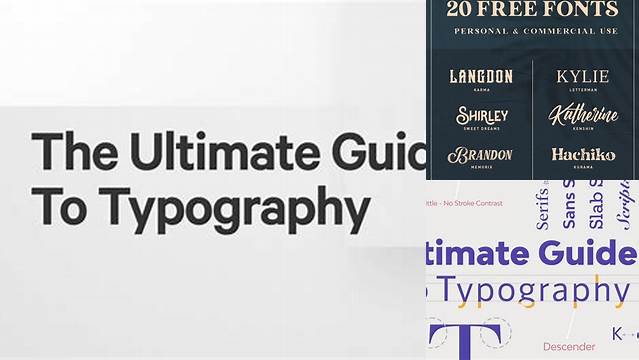
Top Free Typography Fonts: The Ultimate Guide
Hey guys! Finding the perfect font can seriously make or break your design, right? Whether you're crafting a killer logo, designing a website, or just making a cool poster, typography matters. And the best part? You don't always have to shell out big bucks for awesome fonts. Today, we're diving deep into the world of the best free typography fonts. Get ready to bookmark this page because we're about to unleash a treasure trove of amazing, cost-free fonts that will elevate your projects to the next level!
Why Typography Matters
Before we jump into the list, let's quickly chat about why typography is so crucial. Typography isn't just about choosing pretty letters; it's about conveying a message, setting a tone, and creating a visual hierarchy. The right font can grab attention, improve readability, and even evoke emotions. Think about it: a playful, rounded font might be perfect for a children's book, while a sleek, sans-serif font could be ideal for a tech startup. The choices are endless, and understanding the impact of different typefaces is key to effective design.
1. Best Free Sans-Serif Fonts
Sans-serif fonts are your go-to for a modern, clean look. These fonts lack the little decorative strokes (serifs) that you see in fonts like Times New Roman. They're super versatile and work great for body text, headlines, and logos. Let's explore some of the best free options.
Discovering the top sans-serif font options
When looking for the best free typography fonts, sans-serif options always stand out due to their clarity and modern appeal. Fonts like Roboto offer a clean and versatile look, perfect for both body text and headlines. Known for its readability across various screen sizes, Roboto is a staple in the design world. Another excellent choice is Open Sans, which boasts a neutral yet friendly appearance. Its wide range of weights makes it suitable for various design projects. For a more geometric feel, Montserrat is a fantastic option. This font exudes sophistication and works exceptionally well in logos and branding materials. To add a touch of uniqueness, consider Lato, a semi-rounded sans-serif that provides warmth without sacrificing professionalism. These sans-serif fonts offer a balanced blend of functionality and style, making them ideal for any designer on a budget.
2. Top Free Serif Fonts
Serif fonts have those little strokes at the ends of the letters, giving them a more traditional and elegant feel. They're often used in books, magazines, and websites that want to convey a sense of authority and sophistication. Let's find some great free serif fonts.
Exploring the world of no-cost serif fonts
For projects that require a touch of tradition and elegance, serif fonts are indispensable, and finding the best free typography fonts in this category is a real win. Lora is a beautifully balanced serif font that offers a contemporary feel while maintaining readability. Its slightly brushed curves add a touch of personality, making it suitable for both body text and display purposes. Playfair Display is another standout option, perfect for headlines and titles. Its high contrast and elegant design bring a sense of sophistication to any project. If you're looking for a more classic appearance, Arvo is an excellent choice. This slab-serif font provides a strong and sturdy look, ideal for branding and editorial design. Lastly, Bitter is designed specifically for on-screen readability, making it a fantastic option for websites and digital publications. With these free serif fonts, you can infuse your designs with character and refinement without spending a dime.
3. Best Free Display Fonts
Display fonts are all about making a statement. These are the fonts you use for headlines, posters, and anything that needs to grab attention. They're often more stylized and unique than your standard body text fonts. Let's uncover some amazing free display fonts.
Unleashing creative potential with complimentary display fonts
When it comes to making a visual impact, display fonts are essential, and discovering the best free typography fonts in this category can truly elevate your designs. Bebas Neue is a widely popular sans-serif display font known for its clean lines and tall, narrow structure. It's perfect for headlines and posters where space is limited. Oswald is another excellent choice, offering a versatile and modern look that works well in various contexts. Its slightly condensed form makes it ideal for creating eye-catching titles. For a more playful and whimsical feel, consider Luckiest Guy. This hand-drawn font adds a touch of personality and is perfect for projects that need a fun, informal vibe. If you're after something bold and impactful, Impact is a classic option that always delivers. These free display fonts provide a fantastic way to add character and flair to your designs without breaking the bank.
4. Free Script and Handwritten Fonts
Script and handwritten fonts add a personal, human touch to your designs. They're great for invitations, logos, and anything that needs a bit of warmth and authenticity. Let's explore some top-notch free options.
Adding a personal touch with complimentary script fonts
To inject warmth and personality into your projects, script and handwritten fonts are invaluable, and finding the best free typography fonts in this style is a fantastic opportunity. Great Vibes is a beautifully flowing script font that exudes elegance and is perfect for wedding invitations and formal designs. Pacifico offers a casual and friendly vibe, ideal for branding and social media graphics. Its rounded letters and playful curves make it approachable and engaging. For a more rustic and authentic feel, Amatic SC is an excellent choice. This hand-drawn font adds a unique touch to any project, perfect for posters and headings. Additionally, Dancing Script provides a lively and informal look, making it great for adding a touch of fun to your designs. These free script and handwritten fonts allow you to create designs that feel personal and inviting, without incurring any costs.
5. Best Free Monospace Fonts
Monospace fonts have characters that each take up the same amount of horizontal space. They're often used in coding, terminal emulators, and designs that need a technical or retro feel. Let's check out some awesome free monospace fonts.
Exploring complimentary monospace font options
Monospace fonts are essential for coding, technical documentation, and creating a retro aesthetic. Discovering the best free typography fonts in this category is crucial for developers and designers alike. Source Code Pro is a highly readable and versatile monospace font designed by Adobe. Its clean lines and distinct letterforms make it ideal for long coding sessions. Fira Code takes monospace fonts to the next level with its ligatures, which combine common coding characters into single, more readable symbols. Roboto Mono offers a balanced and modern look, suitable for both coding and UI design. Its clear and consistent design ensures readability across various screen sizes. For a more classic and typewriter-inspired feel, Courier Prime is an excellent choice. These free monospace fonts provide a range of options to enhance your coding environment and design projects.
6. Font Pairing Tips
Choosing the right fonts is only half the battle. Pairing them effectively is where the magic happens. Here are some tips for creating harmonious font combinations:
Mastering the art of font combinations
Choosing the right fonts is essential, but pairing them effectively takes your design to the next level. When seeking the best free typography fonts, consider these tips to create harmonious combinations. Start by contrasting font styles. Pair a bold, attention-grabbing display font with a simple, readable sans-serif for body text. This creates a clear visual hierarchy and ensures readability. Another approach is to use fonts from the same family but with different weights and styles. For example, combine Roboto Bold for headlines with Roboto Regular for body text. This provides consistency while adding subtle variation. You can also pair a serif font with a sans-serif font to achieve a classic yet modern look. Lora paired with Open Sans is a popular combination that works well in many contexts. Lastly, ensure that the fonts you choose complement each other’s mood and tone. A playful script font might pair well with a clean sans-serif, while a formal serif font might be better suited with a more traditional sans-serif. With these strategies, you can create visually appealing and effective font pairings.
7. Where to Download Free Fonts
So, where can you find these amazing free fonts? Here are some of the best resources:
Finding quality fonts at no cost
Locating the best free typography fonts requires knowing where to look. Several excellent resources offer high-quality fonts at no cost. Google Fonts is a fantastic starting point, providing a vast library of open-source fonts that are easy to access and use on the web. Adobe Fonts also offers a selection of free fonts through their Creative Cloud subscription, giving you access to a wide range of professionally designed typefaces. Font Squirrel is another valuable resource, curating free fonts that are licensed for commercial use, ensuring you can use them in your projects without legal concerns. DaFont is a popular platform with a diverse collection of user-submitted fonts, although it's important to check the licensing terms for each font. MyFonts offers both free and paid fonts, with occasional freebies available in their newsletter. By exploring these resources, you can discover a wealth of free fonts to enhance your design projects.
8. Understanding Font Licensing
Before you start using any free font, it's crucial to understand the licensing terms. Some fonts are free for personal use only, while others can be used commercially. Make sure you read the fine print to avoid any legal issues down the road. Always double-check the license! This is super important, guys!
Navigating the legal aspects of complimentary fonts
Before using any free font, it's crucial to understand its licensing terms to avoid legal issues. When searching for the best free typography fonts, always check the license agreement. Some fonts are free for personal use only, meaning you can use them for non-commercial projects like school assignments or personal blogs. Others are licensed for commercial use, allowing you to use them in projects that generate revenue, such as logos, websites, and marketing materials. Open Font License (OFL) is a common license that permits both personal and commercial use, modification, and distribution. However, some fonts may have specific restrictions, such as requiring attribution or prohibiting modification. Resources like Google Fonts typically provide clear licensing information for each font, making it easy to understand the terms of use. Always read the fine print and ensure you comply with the license requirements to protect yourself from potential copyright infringement. By understanding and respecting font licenses, you can confidently use free fonts in your projects.
9. Font File Formats: OTF vs. TTF
You'll often see fonts in two main file formats: OTF (OpenType Font) and TTF (TrueType Font). OTF is generally the newer and more advanced format, offering better support for advanced typographic features. However, both formats are widely supported, so you usually don't need to worry too much about the difference.
Understanding font file formats: OTF and TTF
When working with fonts, you'll encounter two primary file formats: OTF (OpenType Font) and TTF (TrueType Font). Understanding the differences can help you make informed choices when seeking the best free typography fonts. TTF is the older format, developed by Apple and Microsoft in the late 1980s. It is widely compatible and supports basic typographic features. OTF, developed by Adobe and Microsoft, is the more advanced format. It offers better support for complex typography, including ligatures, alternate characters, and improved kerning. OTF fonts can also contain more glyphs than TTF fonts, allowing for greater design flexibility. While both formats are widely supported across operating systems and software, OTF is generally preferred for its enhanced capabilities. When downloading free fonts, check the file format to ensure it meets your project's needs. If you require advanced typographic features, opt for OTF fonts. Otherwise, TTF fonts will work perfectly well for most standard applications. By knowing the strengths of each format, you can select the most appropriate font file for your design.
10. Kerning, Leading, and Tracking
These are the three main spacing adjustments you need to know to make your text look its best. Kerning adjusts the space between individual letters, leading adjusts the space between lines of text, and tracking adjusts the space between all letters in a word or phrase. Mastering these adjustments can significantly improve readability and visual appeal.
Mastering the art of spacing in typography
To achieve visually appealing and readable text, mastering kerning, leading, and tracking is essential. When selecting the best free typography fonts, understanding these spacing adjustments can significantly enhance your designs. Kerning refers to adjusting the space between individual letters to create a balanced and harmonious appearance. Poor kerning can result in awkward gaps or overlapping letters, making the text look unprofessional. Leading, also known as line-height, adjusts the vertical space between lines of text. Proper leading ensures readability by preventing lines from appearing too crowded or too far apart. Tracking, or letter-spacing, adjusts the uniform space between all letters in a word or phrase. Adjusting tracking can improve readability and create a more balanced look, especially in headlines and display text. Experimenting with these spacing adjustments can transform ordinary typography into visually stunning designs. Use these techniques to refine your text and create a polished, professional look with your chosen free fonts.
11. Color and Typography
The color of your text can have a huge impact on its readability and overall aesthetic. Consider the contrast between your text and background, and choose colors that complement your design.
Integrating color to enhance typography
The color of your text significantly impacts its readability and the overall aesthetic of your design. When choosing the best free typography fonts, consider how color can enhance or detract from your message. High contrast between text and background is crucial for readability. Dark text on a light background or vice versa ensures that the text is easily visible. Consider the mood and tone you want to convey with your design. Warm colors like red and orange can evoke excitement and energy, while cool colors like blue and green can create a sense of calm and serenity. Use color to emphasize important elements in your text, such as headlines or calls to action. A pop of color can draw the reader's eye and highlight key information. Remember to maintain consistency in your color choices to create a cohesive and professional design. Experiment with different color combinations to find what works best for your chosen fonts and design context. By carefully integrating color into your typography, you can create visually appealing and impactful designs.
12. Using Typography in Logos
Your logo is the face of your brand, so it's crucial to choose a font that accurately reflects your brand's personality. Consider the overall style and tone you want to convey, and choose a font that aligns with those qualities. Simplicity is often key!
Crafting memorable logos with complimentary fonts
Your logo is the cornerstone of your brand identity, and typography plays a crucial role in creating a memorable and effective logo. When selecting the best free typography fonts for logo design, consider your brand's personality and values. Choose a font that reflects your brand's tone, whether it's modern, classic, playful, or sophisticated. Simplicity is often key in logo design. A clean and legible font ensures that your logo is easily recognizable and readable, even at small sizes. Consider the overall style of your brand and choose a font that aligns with that aesthetic. A tech company might opt for a sleek sans-serif font, while a luxury brand might prefer an elegant serif font. Ensure that your logo is scalable and looks good in both print and digital formats. Test your logo in various sizes and applications to ensure readability and visual appeal. By carefully selecting and using typography in your logo, you can create a strong and lasting impression that represents your brand effectively.
13. Typography for Websites
Readability is paramount when choosing fonts for your website. Choose fonts that are easy to read on screens, and pay attention to font size, line height, and contrast. A good rule of thumb is to stick to a maximum of two or three fonts per website.
Enhancing website usability with complimentary fonts
Typography is a critical element of website design, impacting readability, user experience, and overall aesthetics. When choosing the best free typography fonts for your website, prioritize readability. Select fonts that are easy to read on screens, with clear letterforms and ample spacing. Consider the font size and line height to ensure that text is comfortable to read. A good rule of thumb is to use a font size of at least 16 pixels for body text and adjust the line height to create sufficient vertical spacing. Maintain sufficient contrast between text and background to ensure that text is easily visible. Use a maximum of two or three fonts per website to maintain consistency and avoid visual clutter. Choose fonts that complement each other and reflect your brand's personality. Test your website on various devices and screen sizes to ensure that the typography looks good across different platforms. By carefully selecting and implementing typography, you can create a website that is both visually appealing and highly usable.
14. Typography in Print Design
Print design offers different considerations than web design. You have more control over the final output, but you also need to consider factors like paper stock and printing techniques. Choose fonts that will reproduce well in print, and always proof your designs before sending them to the printer.
Optimizing print designs with complimentary fonts
Typography in print design requires careful consideration due to the unique characteristics of physical media. When selecting the best free typography fonts for print projects, choose fonts that reproduce well on paper. Consider the paper stock you're using and how it will affect the appearance of the text. Smooth, coated paper provides sharper results, while textured paper may require bolder fonts. Pay attention to font size and line height to ensure readability. Print designs often require larger font sizes than web designs due to viewing distance. Always proof your designs before sending them to the printer to catch any errors or unexpected results. Check for issues like poor kerning, uneven spacing, or color inconsistencies. Choose fonts that are appropriate for the tone and style of your design. A formal invitation might require an elegant serif font, while a promotional flyer might benefit from a bold and attention-grabbing sans-serif font. By carefully selecting and implementing typography, you can create print designs that are visually appealing and effectively communicate your message.
15. Headline Typography Tips
Your headlines are the first thing people see, so they need to grab attention and clearly communicate the main message. Use a larger font size, bold weight, and contrasting color to make your headlines stand out. Experiment with different fonts and styles to find what works best for your design.
Crafting impactful headlines with complimentary fonts
Headlines are crucial for capturing attention and conveying the main message of your design. When selecting the best free typography fonts for headlines, choose fonts that are visually striking and easy to read. Use a larger font size to make your headlines stand out from the surrounding text. A bold weight can also help to draw the reader's eye. Consider using a contrasting color to further emphasize your headlines. Experiment with different fonts and styles to find what works best for your design. A bold sans-serif font can create a modern and impactful headline, while an elegant serif font can convey a sense of sophistication. Pay attention to kerning and tracking to ensure that your headlines are visually appealing and easy to read. Use clear and concise language in your headlines to communicate your message effectively. By carefully selecting and implementing typography, you can create headlines that grab attention and entice readers to engage with your content.
16. Body Text Typography Best Practices
Readability is the most important factor when choosing fonts for body text. Choose fonts that are easy to read on screens or in print, and pay attention to font size, line height, and contrast. Avoid using overly decorative or stylized fonts for body text, as they can be difficult to read in large blocks.
Optimizing body text readability with complimentary fonts
Body text forms the bulk of your content, making readability paramount. When selecting the best free typography fonts for body text, prioritize clarity and ease of reading. Choose fonts that are specifically designed for body text, with clear letterforms and ample spacing. Avoid using overly decorative or stylized fonts, as they can be difficult to read in large blocks of text. Pay attention to font size and line height to ensure that the text is comfortable to read. A good rule of thumb is to use a font size of at least 16 pixels for web content and adjust the line height to create sufficient vertical spacing. Maintain sufficient contrast between text and background to ensure that the text is easily visible. Avoid using too many different fonts in your body text, as this can create visual clutter and reduce readability. By carefully selecting and implementing typography, you can create body text that is both visually appealing and highly readable.
17. Combining Fonts for Visual Harmony
Choosing the right font combinations can be tricky, but it's essential for creating a cohesive and visually appealing design. A good rule of thumb is to choose one font for headlines and another for body text. Look for fonts that complement each other in terms of style, weight, and overall tone.
Creating harmonious designs with complimentary font pairings
Combining fonts effectively is crucial for creating visually harmonious and balanced designs. When selecting the best free typography fonts, consider how different fonts will work together. A good starting point is to choose one font for headlines and another for body text. Select fonts that complement each other in terms of style, weight, and overall tone. For example, a bold sans-serif font for headlines can pair well with a clean and readable serif font for body text. Look for fonts with similar x-heights and proportions to create a cohesive look. Avoid using fonts that are too similar, as this can create a monotonous and uninteresting design. Experiment with different font combinations to find what works best for your project. Consider the overall message and tone you want to convey with your design and choose fonts that align with those qualities. By carefully selecting and combining fonts, you can create designs that are both visually appealing and effectively communicate your message.
18. The Psychology of Fonts
Different fonts evoke different emotions and associations. Serif fonts often convey a sense of tradition and authority, while sans-serif fonts tend to feel more modern and clean. Script fonts can add a touch of elegance or whimsy, while display fonts are all about making a statement. Consider the psychological impact of your font choices and choose fonts that align with your brand's personality and values.
Understanding the emotional impact of complimentary fonts
Fonts have the power to evoke different emotions and associations, influencing how your audience perceives your message. When choosing the best free typography fonts, consider the psychological impact of each font. Serif fonts often convey a sense of tradition, authority, and reliability. They are a good choice for brands that want to project a classic and trustworthy image. Sans-serif fonts tend to feel more modern, clean, and approachable. They are a popular choice for tech companies and brands that want to convey a sense of innovation. Script fonts can add a touch of elegance, whimsy, or personality. They are often used for invitations, logos, and designs that want to create a personal connection. Display fonts are designed to make a statement and grab attention. They are a good choice for headlines, posters, and designs that need to stand out. By understanding the psychological impact of different fonts, you can choose fonts that align with your brand's personality and values and effectively communicate your message.
19. Font Accessibility Considerations
When choosing fonts, it's important to consider accessibility for users with disabilities. Choose fonts that are easy to read for people with visual impairments, and ensure that your text has sufficient contrast with the background. Avoid using overly stylized or decorative fonts, as they can be difficult to read for some users.
Ensuring inclusivity through accessible font choices
Accessibility is a crucial consideration when selecting fonts, ensuring that your designs are inclusive and readable for all users, including those with disabilities. When choosing the best free typography fonts, prioritize readability and legibility. Select fonts that are easy to read for people with visual impairments, with clear letterforms and ample spacing. Ensure that your text has sufficient contrast with the background to make it easily visible. Avoid using overly stylized or decorative fonts, as they can be difficult to read for some users. Consider using larger font sizes to improve readability, especially for users with low vision. Provide alternative text descriptions for images and graphics to ensure that users with screen readers can access the content. Test your designs with accessibility tools to identify and address any potential issues. By carefully considering font accessibility, you can create designs that are inclusive and user-friendly for everyone.
20. The Future of Typography
The world of typography is constantly evolving, with new fonts and technologies emerging all the time. Variable fonts are a recent innovation that allows for greater flexibility and customization, while AI-powered font generators are making it easier than ever to create unique and personalized fonts. Keep an eye on these trends to stay ahead of the curve and create cutting-edge designs.
Exploring emerging trends and technologies in font design
The world of typography is constantly evolving, with new fonts, technologies, and design trends emerging all the time. Keeping up with these advancements is essential for staying ahead of the curve and creating innovative designs. Variable fonts are a recent innovation that allows for greater flexibility and customization. They enable designers to adjust font weight, width, and other parameters dynamically, creating a wide range of variations from a single font file. AI-powered font generators are also transforming the landscape of typography. These tools use artificial intelligence to create unique and personalized fonts based on user input and design preferences. 3D typography is another emerging trend, with designers using 3D software to create visually stunning and immersive typographic designs. Virtual reality (VR) and augmented reality (AR) technologies are also influencing the future of typography, creating new opportunities for interactive and dynamic font experiences. By exploring these emerging trends and technologies, you can push the boundaries of typography and create cutting-edge designs that capture attention and engage audiences.
21. Maintaining Brand Consistency with Typography
Brand consistency is key to building a recognizable and trustworthy brand. Using the same fonts across all your marketing materials, website, and social media channels can help to reinforce your brand identity and create a cohesive brand experience.
Reinforcing brand identity with consistent font usage
Maintaining brand consistency is crucial for building a recognizable and trustworthy brand. When selecting the best free typography fonts, ensure they align with your brand's identity and are used consistently across all platforms. Using the same fonts in your logo, website, marketing materials, and social media channels reinforces your brand identity and creates a cohesive brand experience. Develop a style guide that outlines your brand's font choices, sizes, and spacing guidelines. This ensures that everyone on your team is using the same fonts consistently. Train your employees and designers on your brand's typography guidelines to maintain consistency across all communications. Regularly audit your brand materials to ensure that the correct fonts are being used. By consistently using the same fonts, you can create a strong and memorable brand identity that resonates with your audience.
22. The Impact of Culture on Font Choice
Different cultures may have different associations with certain fonts. What might be considered elegant and sophisticated in one culture could be seen as outdated or inappropriate in another. Consider your target audience and their cultural background when choosing fonts for your designs.
Recognizing cultural influences in font selection
Culture significantly influences how people perceive and interpret visual elements, including typography. When choosing the best free typography fonts, consider the cultural context of your target audience. Different cultures may have different associations with certain fonts, colors, and design styles. What might be considered elegant and sophisticated in one culture could be seen as outdated or inappropriate in another. Research your target audience's cultural background to understand their preferences and sensitivities. Consider using fonts that are commonly used and accepted in their culture. Avoid using fonts that have negative connotations or cultural stereotypes associated with them. Be mindful of language and script differences when designing for multilingual audiences. By understanding and respecting cultural influences, you can create designs that are culturally sensitive and effectively communicate with your target audience.
23. Typography and User Experience (UX)
Typography plays a crucial role in user experience. Readable and well-designed typography can make your website or app more enjoyable and user-friendly, while poorly designed typography can lead to frustration and abandonment.
Enhancing user experience through thoughtful font selection
Typography plays a critical role in user experience (UX), influencing how users interact with your website, app, or digital product. When selecting the best free typography fonts, prioritize readability and usability to enhance the user experience. Choose fonts that are easy to read on screens, with clear letterforms and ample spacing. Pay attention to font size and line height to ensure that the text is comfortable to read. Use sufficient contrast between text and background to make the text easily visible. Avoid using overly decorative or stylized fonts, as they can be difficult to read for some users. Consider the overall layout and design of your website or app and choose fonts that complement the visual style. Test your designs with real users to gather feedback and identify any potential usability issues. By carefully selecting and implementing typography, you can create a user experience that is both visually appealing and highly functional.
24. Advanced Typography Techniques
Once you've mastered the basics of typography, you can start experimenting with more advanced techniques like ligatures, alternate characters, and OpenType features. These features can add a touch of sophistication and polish to your designs.
Mastering complex typographic features for refined designs
Once you have a solid understanding of typography basics, you can explore advanced techniques to elevate your designs. When seeking the best free typography fonts, look for those that offer advanced features like ligatures, alternate characters, and OpenType features. Ligatures are special characters that combine two or more letters into a single glyph, improving readability and visual appeal. Alternate characters provide different stylistic options for individual letters, allowing you to customize the look of your text. OpenType features offer a wide range of typographic enhancements, such as swashes, contextual alternates, and stylistic sets. These features can add a touch of sophistication and polish to your designs. Experiment with these advanced techniques to create unique and visually stunning typography. Use them sparingly and purposefully to enhance readability and visual impact. By mastering these complex typographic features, you can create designs that stand out and communicate your message effectively.
25. Responsive Typography
With the increasing use of mobile devices, it's essential to ensure that your typography looks good on all screen sizes. Use responsive typography techniques to adjust font size, line height, and other parameters based on the screen size and resolution.
Adapting typography for optimal viewing across devices
In today's multi-device world, responsive typography is essential for ensuring that your designs look great on all screen sizes. When selecting the best free typography fonts, consider how they will adapt to different devices and resolutions. Use relative units like ems and rems for font sizes to allow them to scale proportionally. Set maximum and minimum font sizes to prevent text from becoming too small or too large on different devices. Use media queries to adjust font sizes, line heights, and other typographic parameters based on screen size. Consider using variable fonts, which allow for dynamic adjustments to font weight, width, and other properties. Test your designs on various devices and screen sizes to ensure that the typography looks good and is easy to read. By implementing responsive typography techniques, you can create designs that provide a seamless and enjoyable user experience on all devices.
26. Typography and SEO
Believe it or not, typography can even impact your website's SEO. Using readable fonts and optimizing your text for readability can improve user engagement, reduce bounce rate, and ultimately boost your search engine rankings.
Enhancing search engine visibility with optimized font choices
Typography can indirectly impact your website's search engine optimization (SEO) by influencing user engagement and readability. When selecting the best free typography fonts, consider how they can contribute to a positive user experience and improve your website's SEO. Use readable fonts that are easy to scan and understand. This can increase user engagement and reduce bounce rate. Optimize your text for readability by using appropriate font sizes, line heights, and contrast. This can improve the time users spend on your site and encourage them to explore more pages. Use headings and subheadings to break up your content and make it easier to read. Use keywords in your headings to improve your website's search engine rankings. Ensure that your website is mobile-friendly and that your typography looks good on all devices. This can improve your website's mobile search ranking. By optimizing your typography for readability and user engagement, you can improve your website's SEO and attract more organic traffic.
27. Free Font Alternatives to Popular Paid Fonts
Sometimes you fall in love with a font that's way out of your budget. Luckily, there are often free alternatives that offer a similar look and feel. Do some research to find free fonts that can give you the same aesthetic without breaking the bank.
Discovering complimentary alternatives to expensive typefaces
Many popular and high-quality fonts come with a hefty price tag, but fortunately, there are often free alternatives that offer a similar look and feel. When seeking the best free typography fonts, consider exploring alternatives to expensive typefaces. Research popular paid fonts and look for free fonts that share similar characteristics, such as style, weight, and proportions. Online font identification tools can help you find fonts that are visually similar to a given typeface. Check font websites and forums for recommendations on free font alternatives. Be aware of licensing restrictions and ensure that you are using the free fonts legally. By doing some research and exploring your options, you can find free font alternatives that provide a similar aesthetic without breaking the bank.
28. The Importance of Regular Font Audits
It's a good idea to regularly audit your font library to ensure that you're using the right fonts for your projects and that you're not violating any licensing agreements. This can also help you to identify outdated or unused fonts that you can remove to streamline your workflow.
Maintaining font libraries for optimized workflows
Regular font audits are essential for maintaining an organized and efficient font library. When managing your best free typography fonts, periodically review your collection to ensure that you're using the right fonts for your projects. Check for font duplicates and remove any unnecessary files to save storage space. Ensure that you have the proper licenses for all the fonts you're using, especially if you're using them for commercial purposes. Remove any outdated or unused fonts to streamline your workflow and make it easier to find the fonts you need. Update your fonts regularly to take advantage of any bug fixes or improvements. By conducting regular font audits, you can ensure that your font library is organized, up-to-date, and compliant with licensing agreements.
29. Resources for Learning More About Typography
Want to dive deeper into the world of typography? There are tons of great resources available online and in print. Check out books, blogs, websites, and online courses to expand your knowledge and skills.
Expanding typographic expertise with valuable resources
To deepen your understanding of typography and enhance your design skills, numerous valuable resources are available online and in print. When exploring the best free typography fonts, consider expanding your knowledge with these resources. Typography books offer in-depth coverage of typographic principles, history, and best practices. Online typography blogs and websites provide articles, tutorials, and inspiration for designers of all levels. Online courses and workshops offer structured learning opportunities and hands-on experience with typography. Typography conferences and events provide opportunities to network with other designers and learn from industry experts. Design communities and forums offer a platform for sharing knowledge, asking questions, and receiving feedback on your designs. By utilizing these resources, you can expand your typographic expertise and create visually stunning and effective designs.
30. Staying Updated with Typography Trends
The world of typography is constantly evolving, so it's important to stay updated with the latest trends and innovations. Follow design blogs, attend conferences, and experiment with new fonts and techniques to keep your skills sharp and your designs fresh.
Remaining current with evolving font styles and innovations
Staying updated with the latest typography trends and innovations is essential for designers who want to create cutting-edge and visually appealing designs. As the world of the best free typography fonts evolves, keeping pace is key. Follow design blogs and websites to stay informed about new font releases, design trends, and typographic techniques. Attend design conferences and workshops to learn from industry experts and network with other designers. Experiment with new fonts and techniques to push the boundaries of typography and create unique designs. Participate in online design communities and forums to share your work and receive feedback from other designers. By staying updated with the latest trends and innovations, you can keep your skills sharp and your designs fresh and relevant.